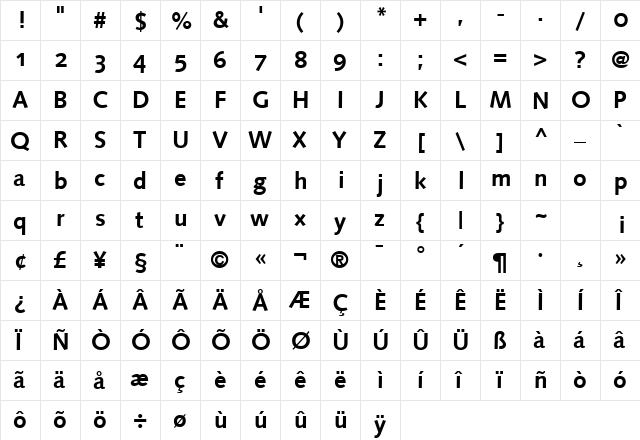
Unisyn Fett
Design Context for Unisyn Typeface
Unisyn offers clean, dependable letterforms without strong stylistic allegiance, making it a practical choice for designers who need flexibility.
Pro Tip: Use Unisyn in both headline and body roles to test its range before committing to a single application.